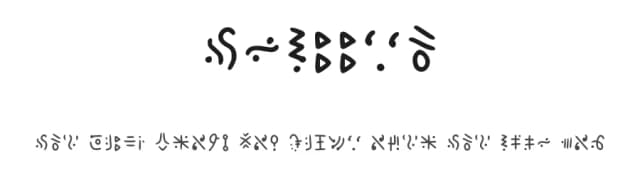
About Esve Font
Esve Font is a versatile dingbats font that works for both headings and body text. Pair it with a contrasting sans-serif or serif font to add visual interest and a clear distinction between titles and body copy.
Esve Font